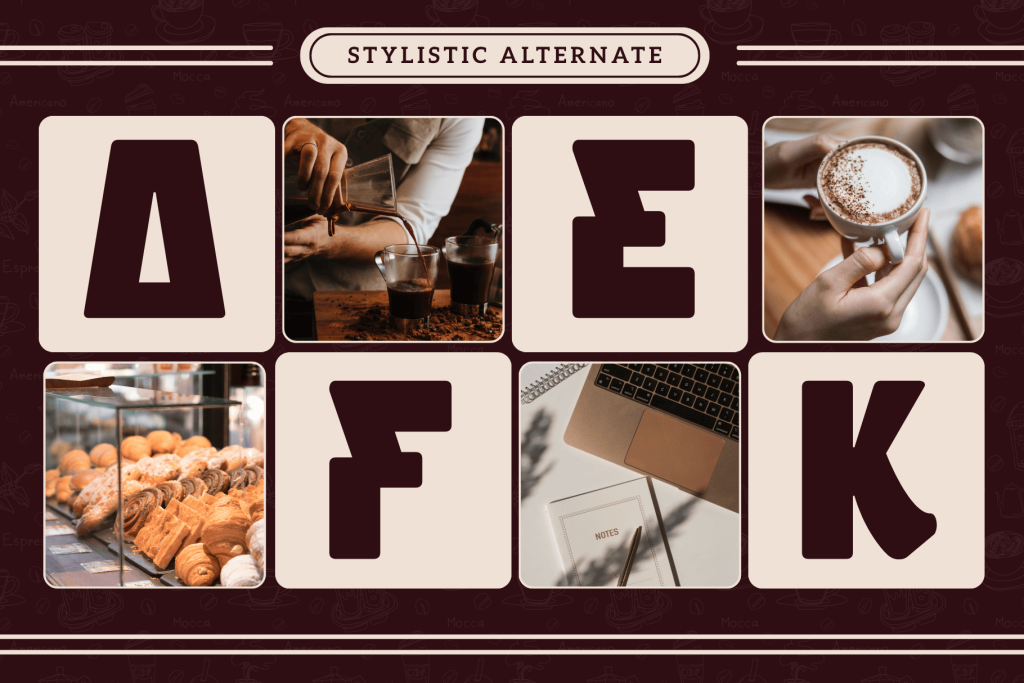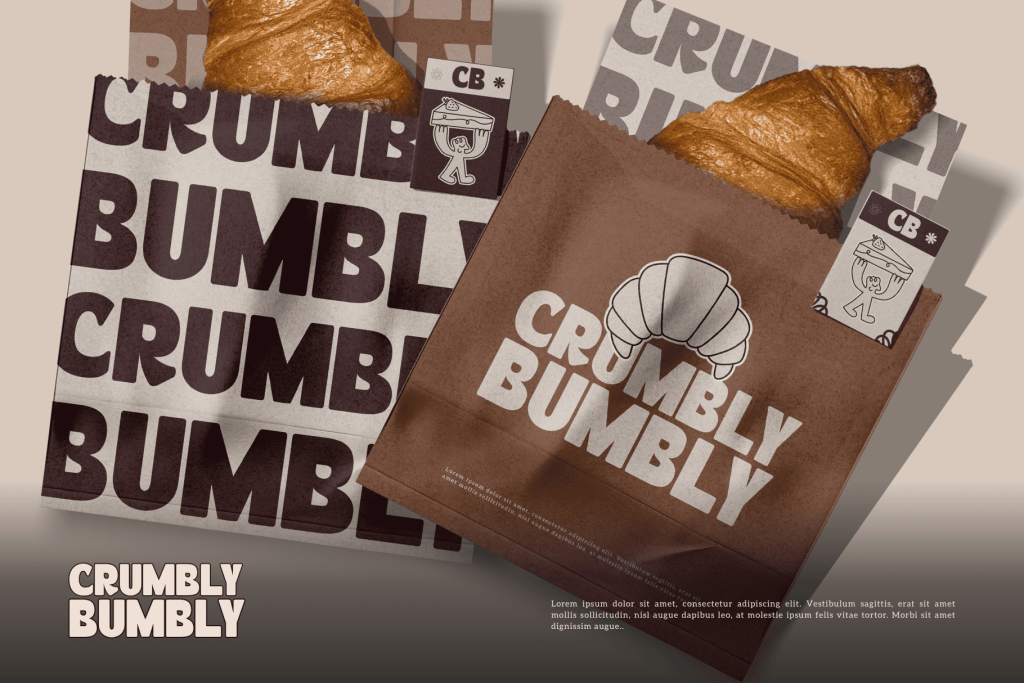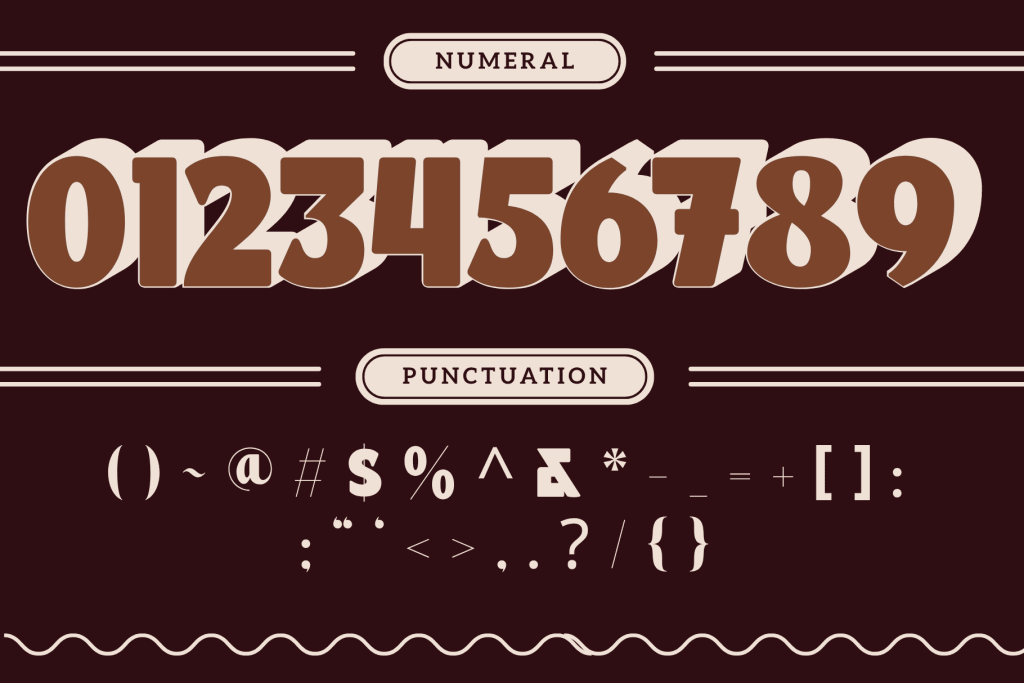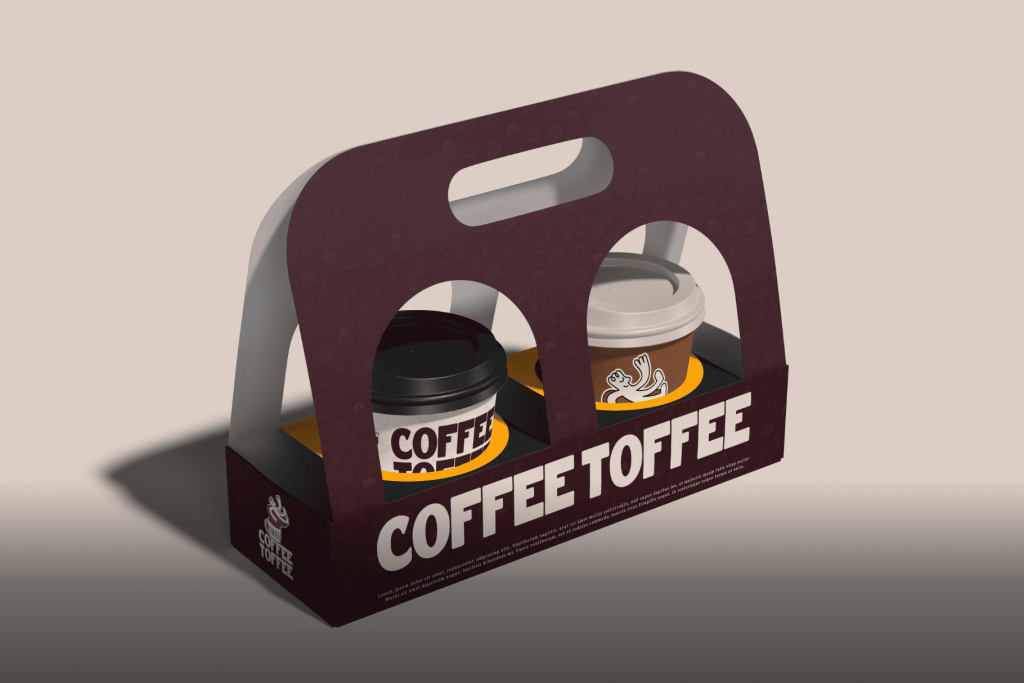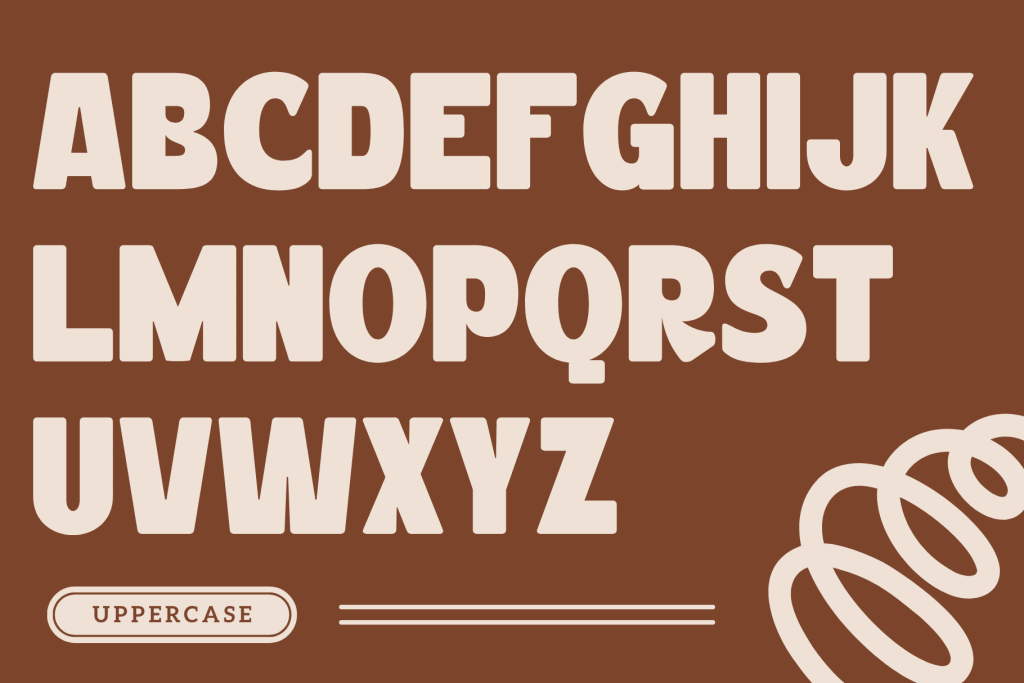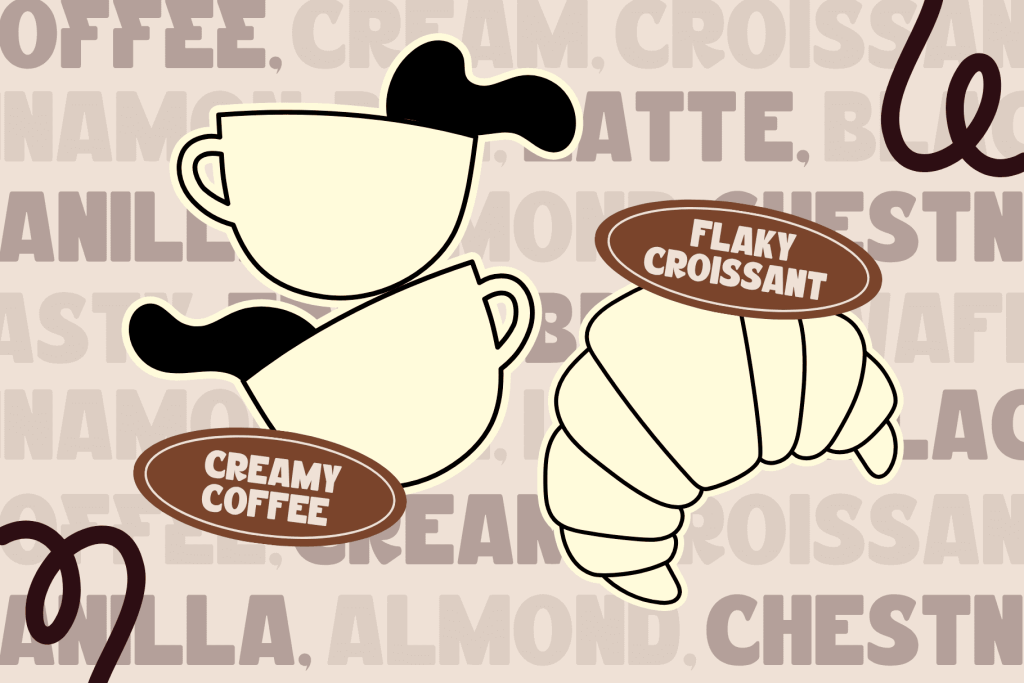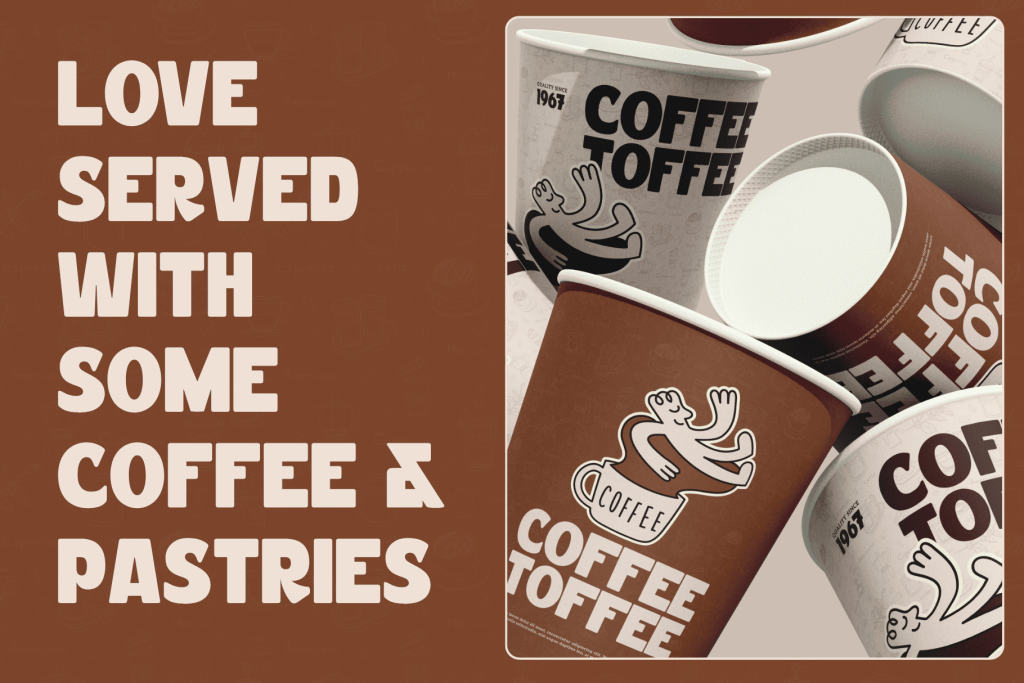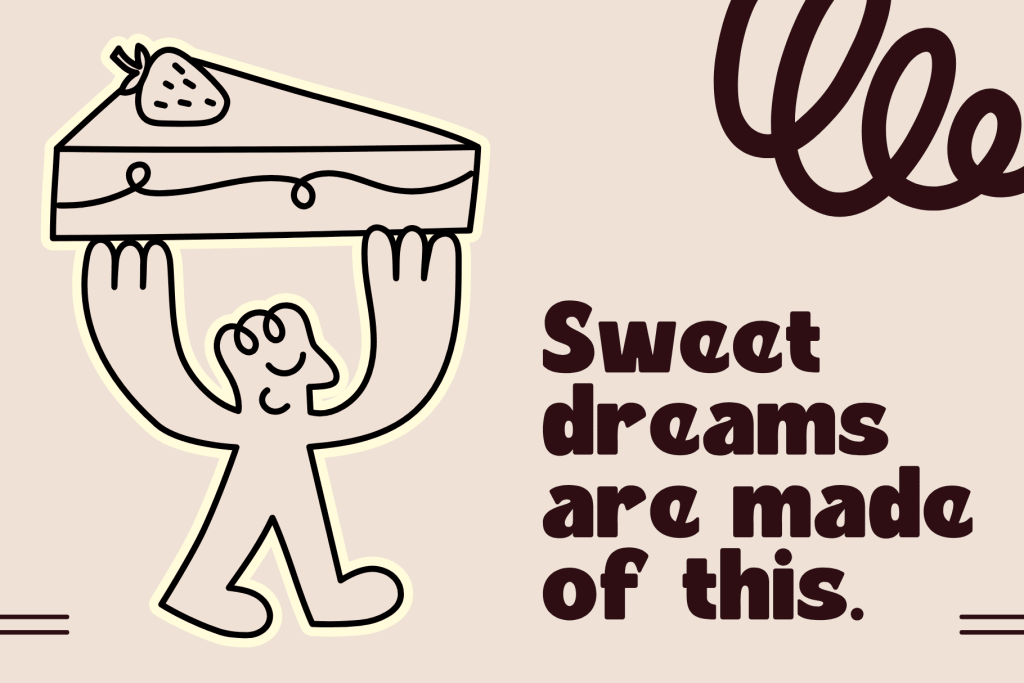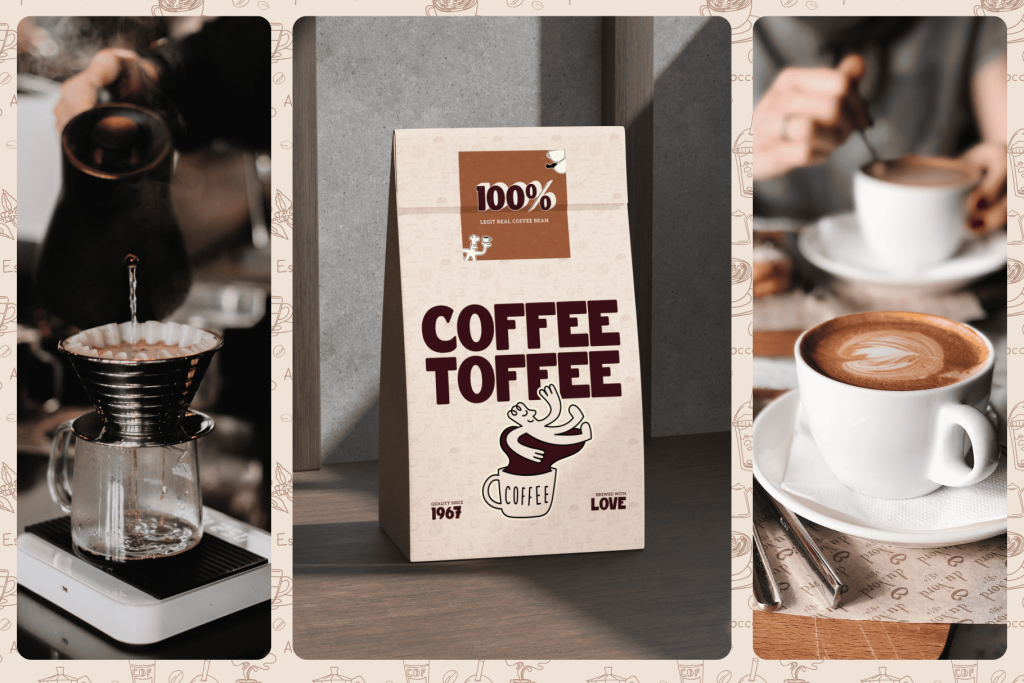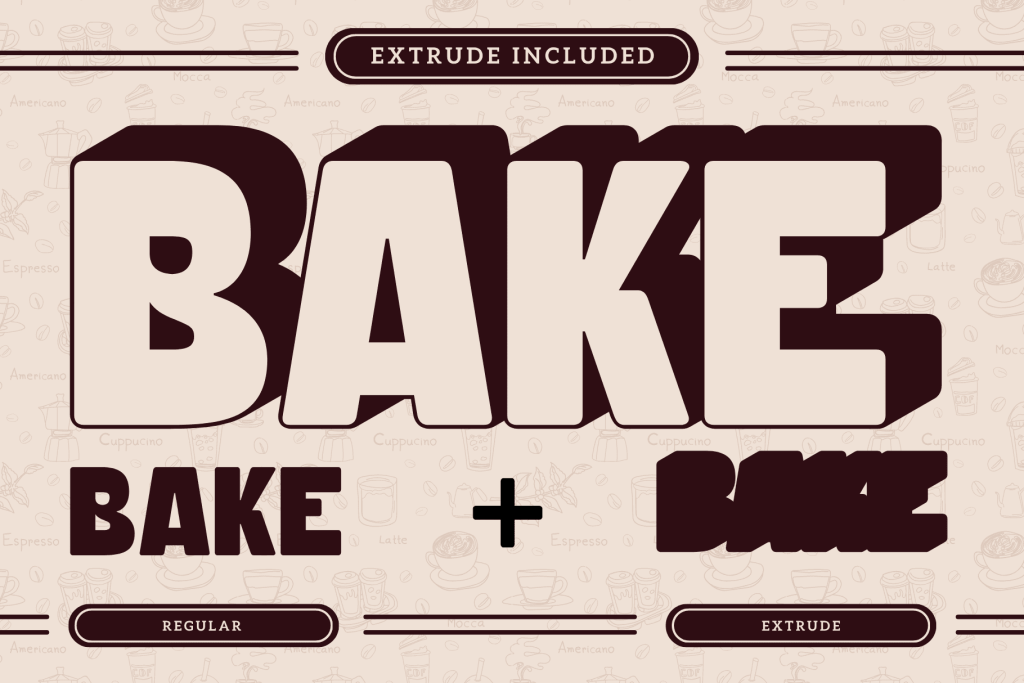
Flury Muffin – Food Logo Font
Flury Muffin offers beautiful typographic harmony for a diversity of design projects, including logos & branding, social media posts, advertisements & product designs.
• Food Logo Font
• Modern Design
• Perfect for Branding & Logos
• Regular + Extrude